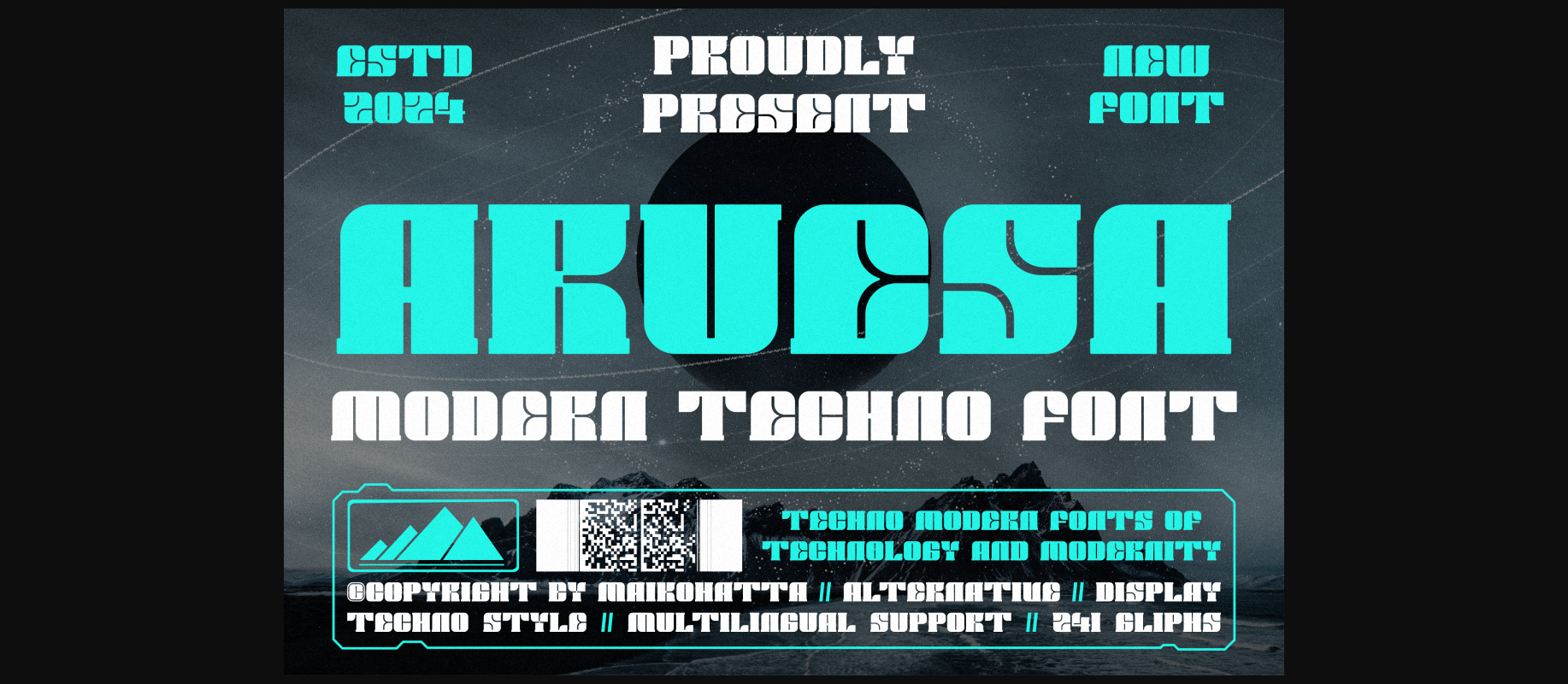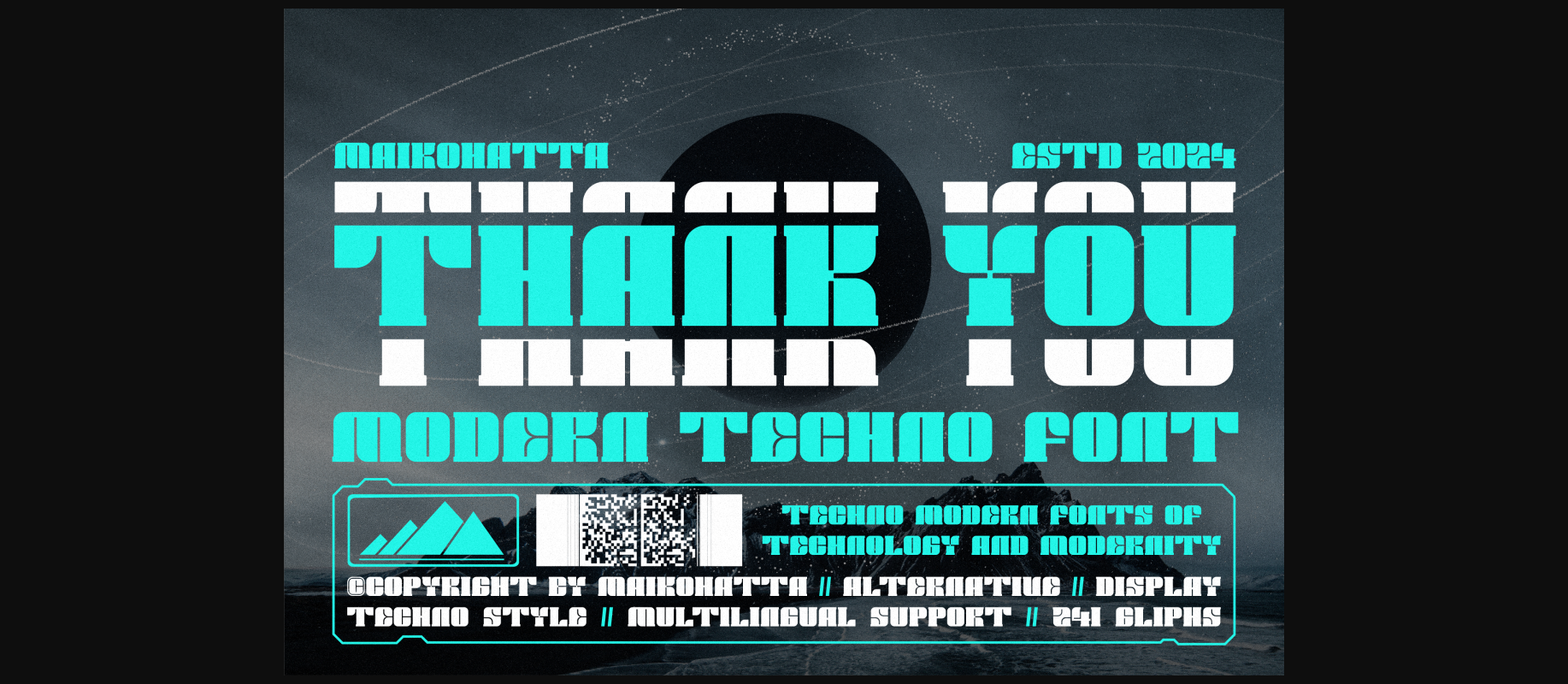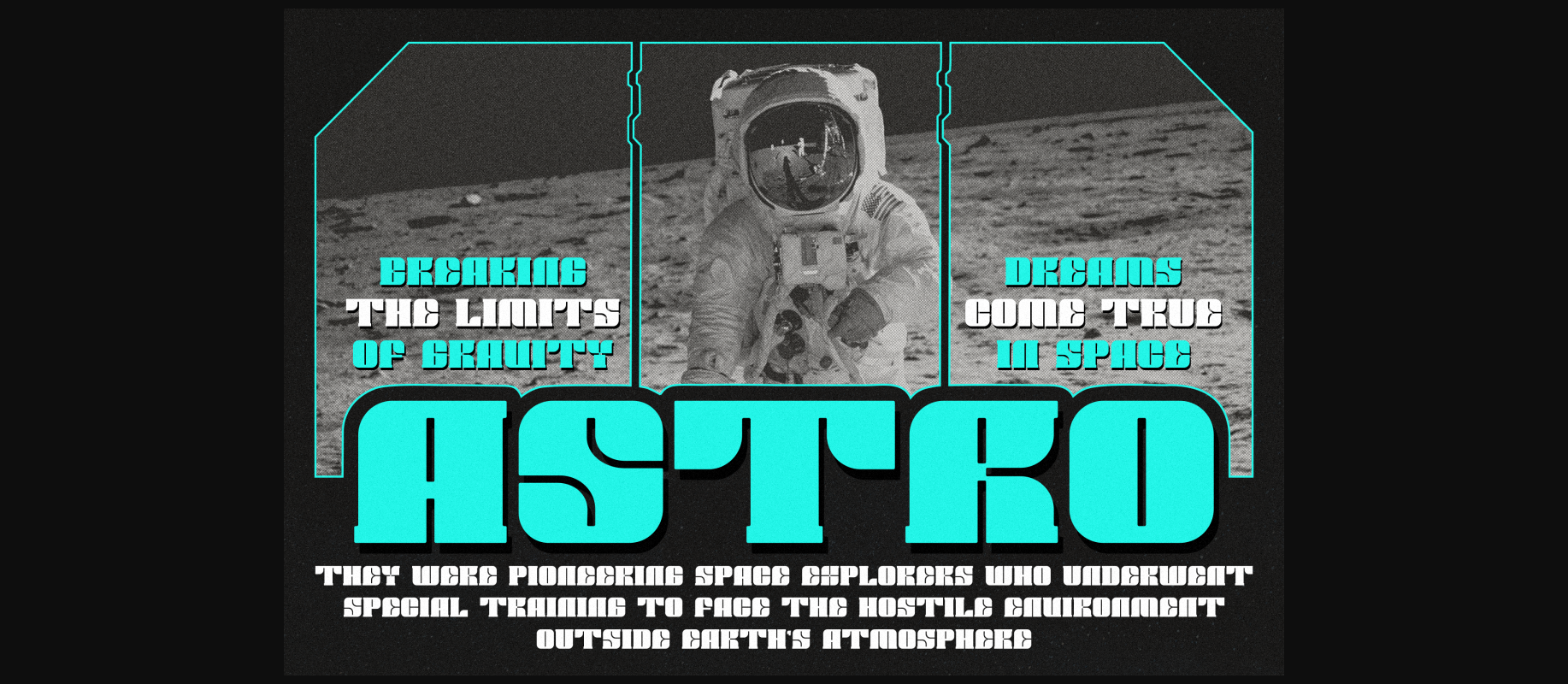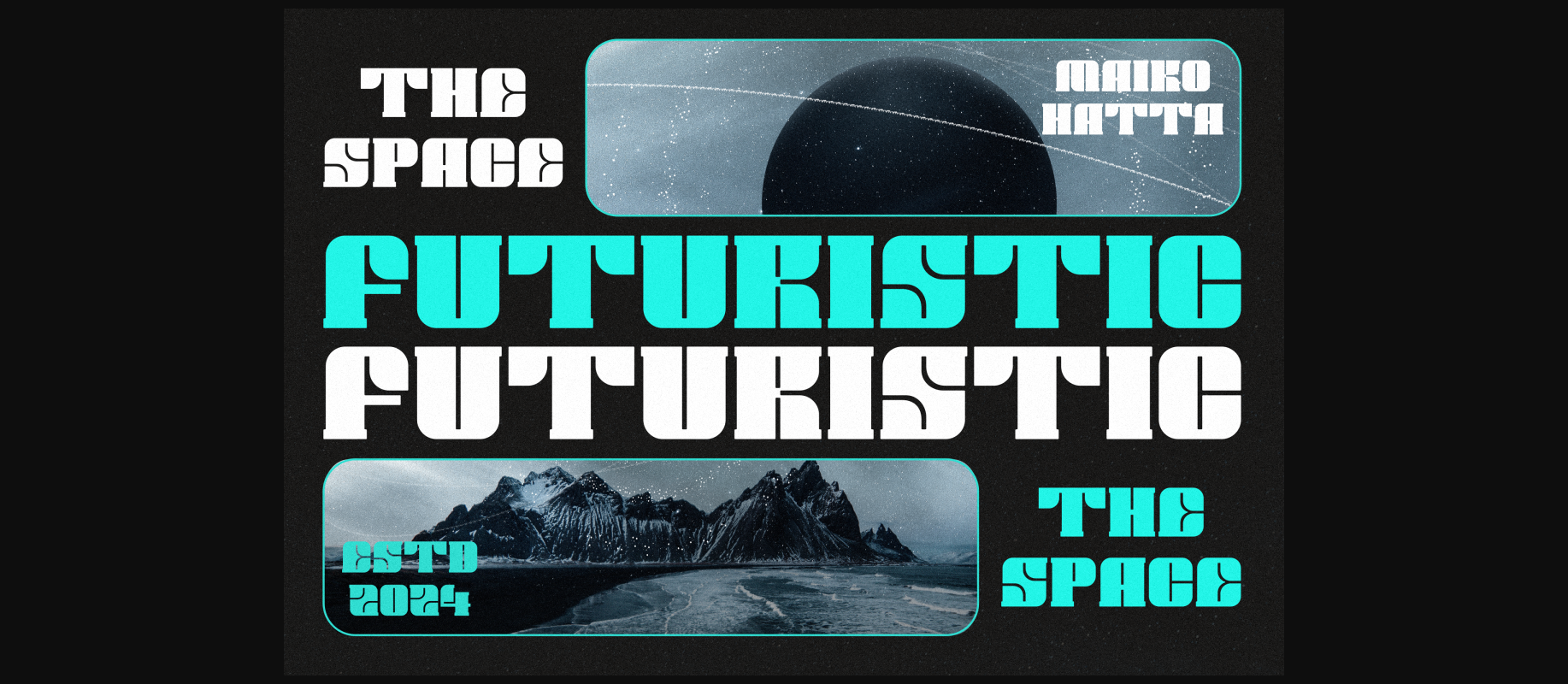
About Aruesa Font
Aruesa Modern Techno is a bold and authentic display font. The font is suitable for any branding project like logo, Template Design, esport, and many more. outstanding in a wide range of contexts.